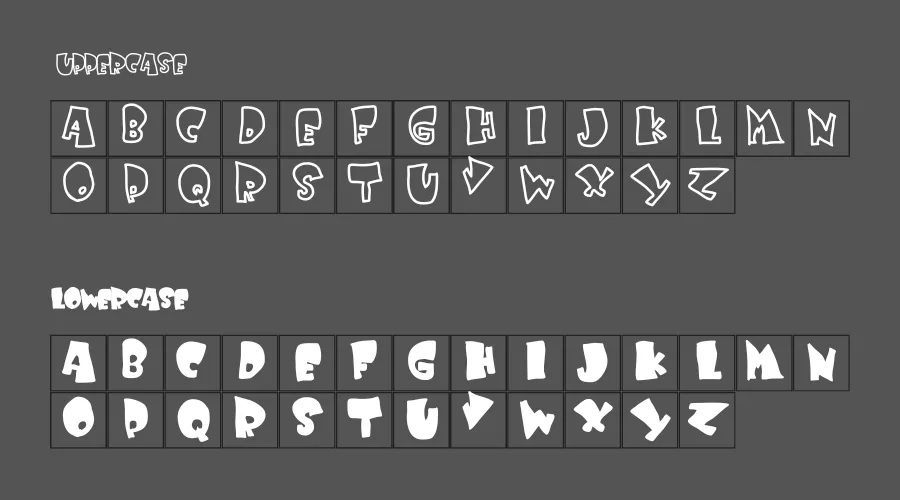
About Kruffy Font
Kruffy Font is a truly unique and eye-catching typeface designed by a famous graphic designer named Fontalicious. It looks like a cartoonish texture family with unique and elegant styles such as light, regular, semi-bold, and, bold. You can get it free from here, and utilize it for various purposes and tasks.
It contains various types of alphabet characters such as uppercase letters, lowercase letters, symbols, digits, numerals, and punctuation. This font was created with the goal of looking like an old-fashioned cartoon. It has a good-looking and elegant texture that is perfect for CSS and adobe photoshops.
This font has an online generator tool, it will help you to transform all your simple textures into stylish and trendy shapes by copying and pasting your desired text into it. It can be used with cocomelon font. The curved lines and bold letterforms of the Kruffy Typeface also make it suitable for a wide variety of projects.